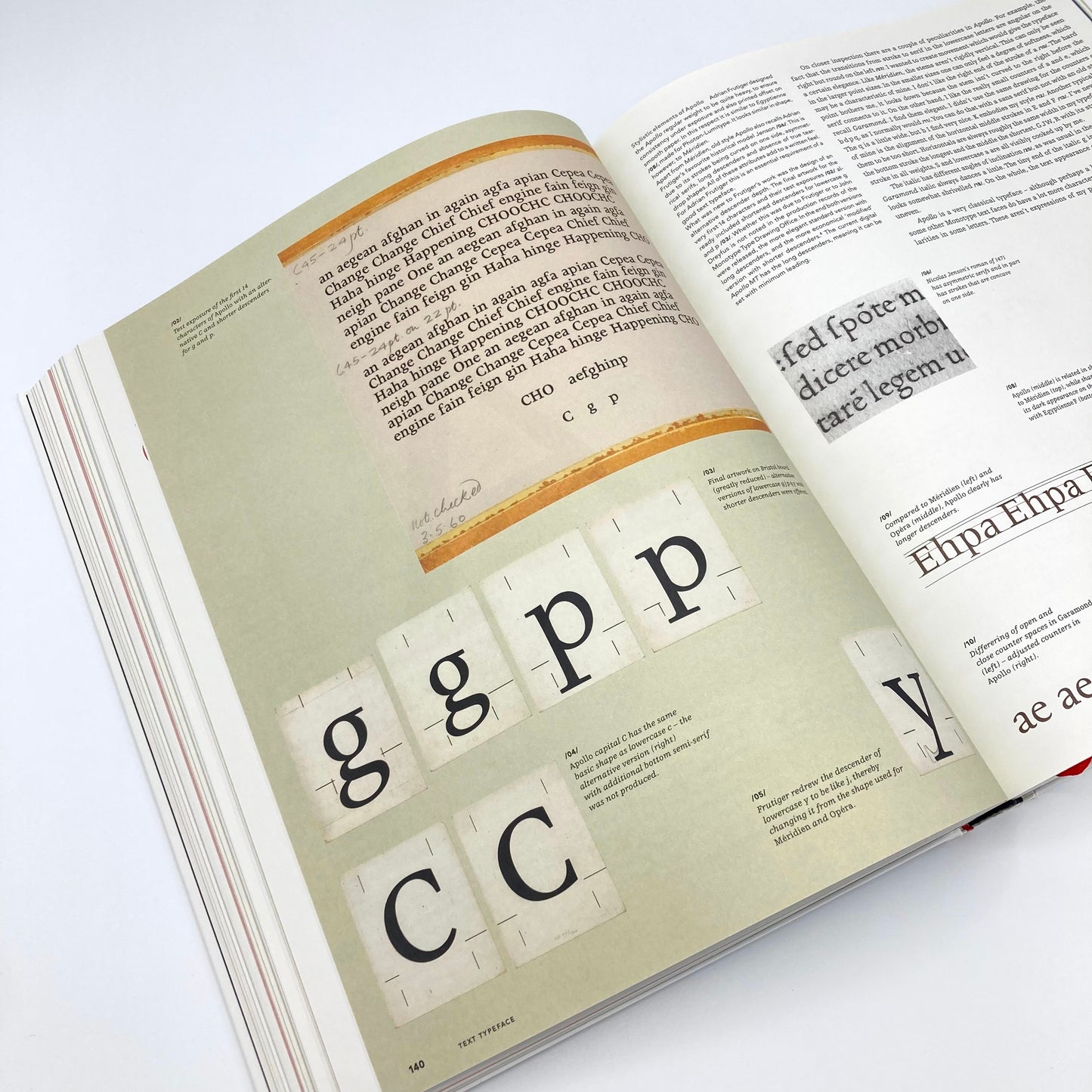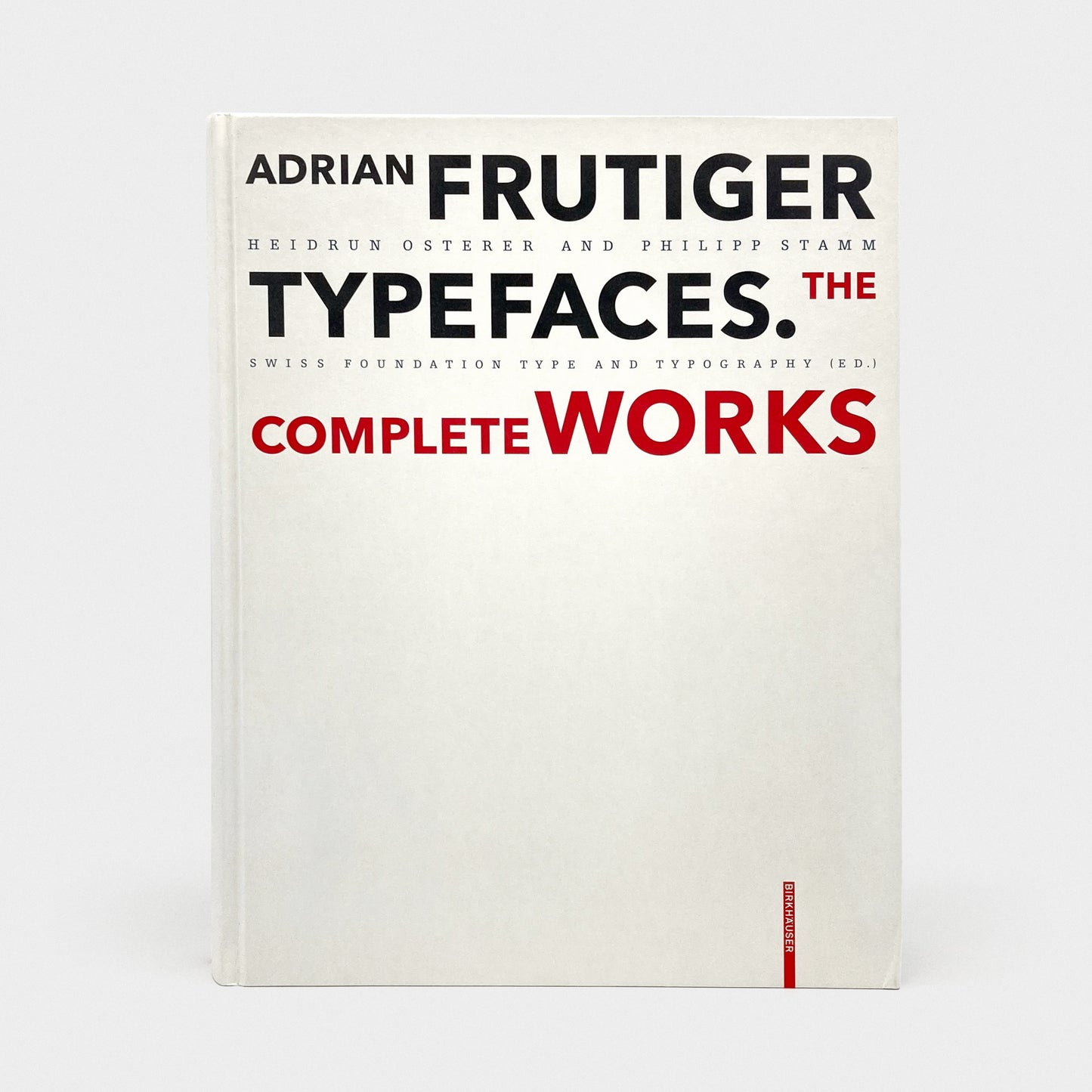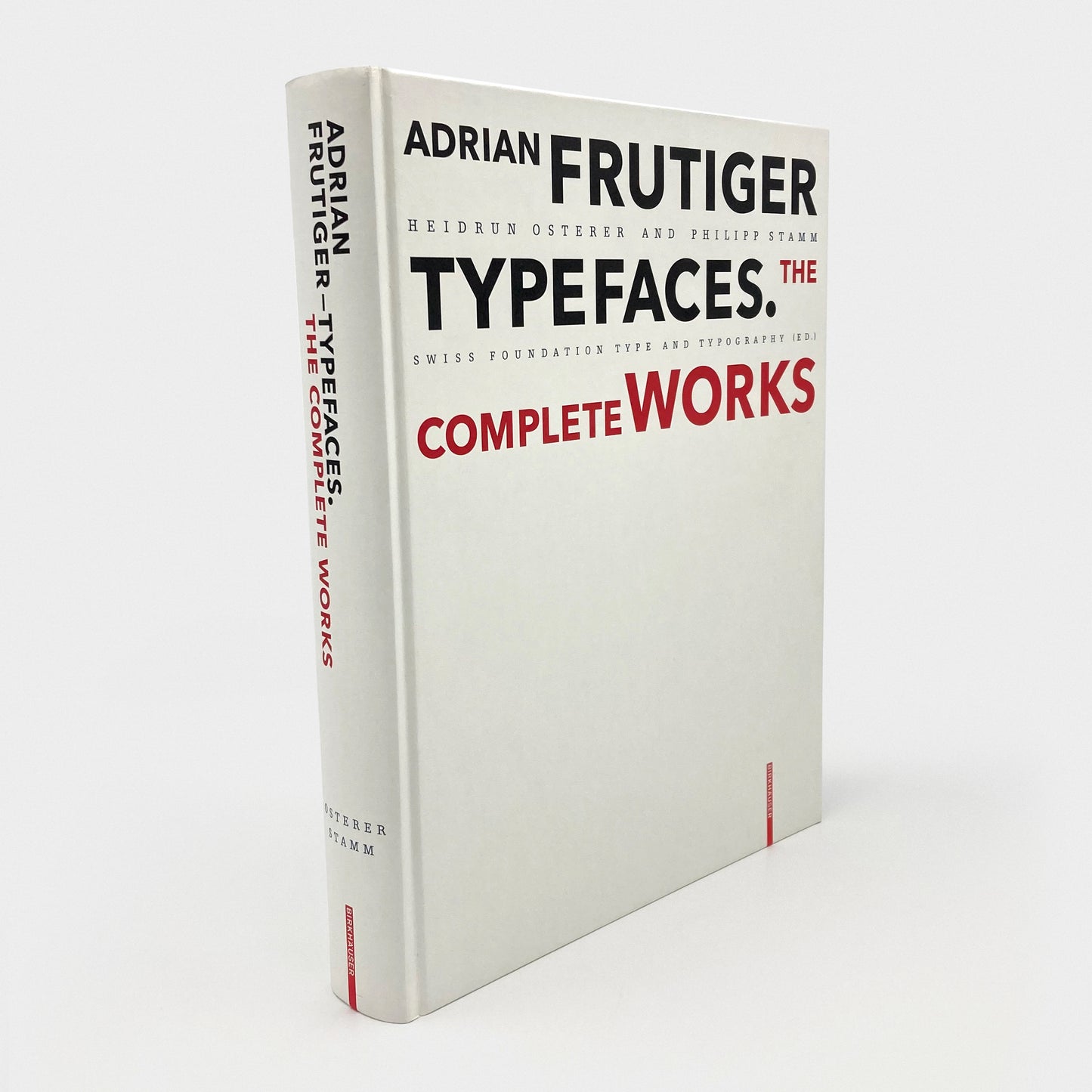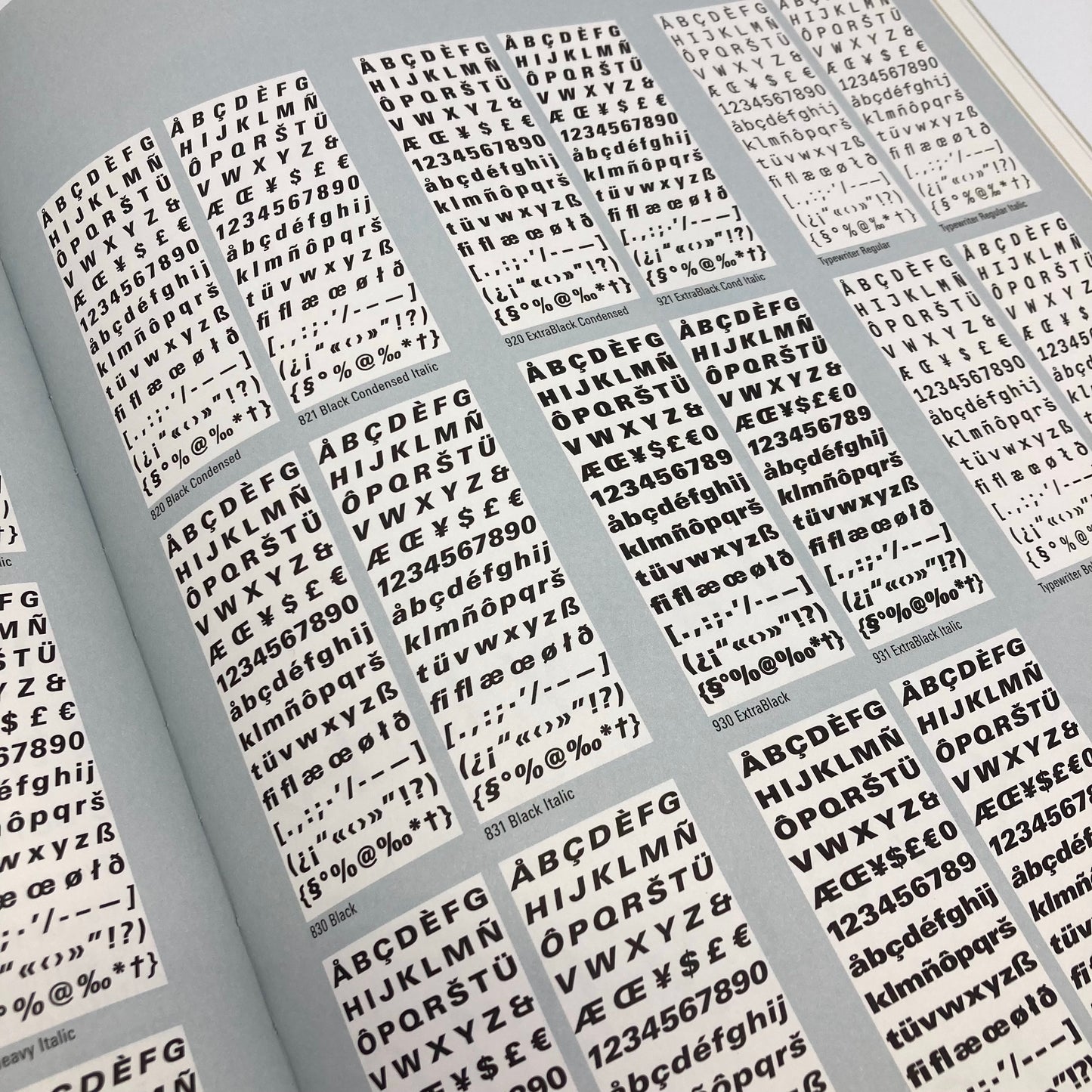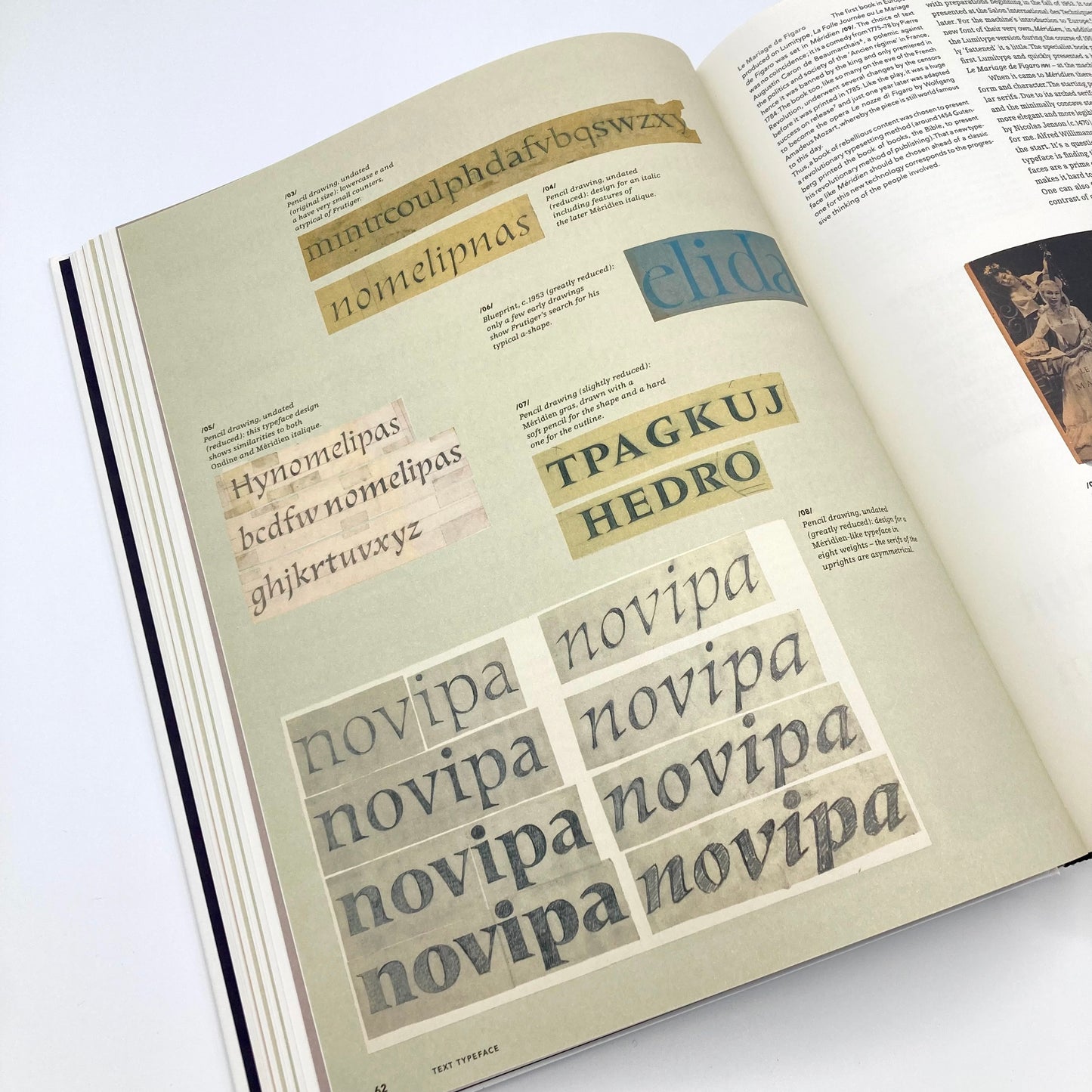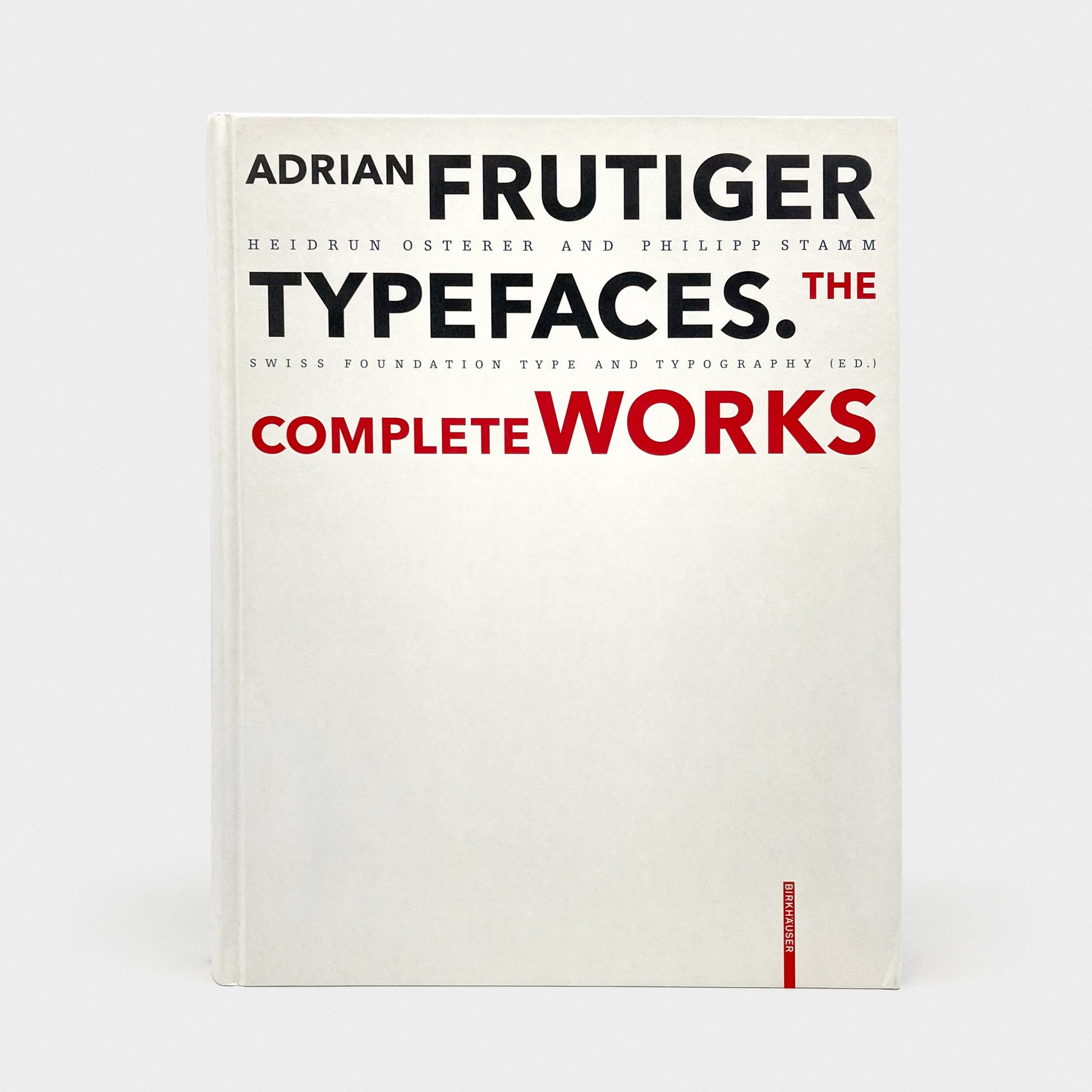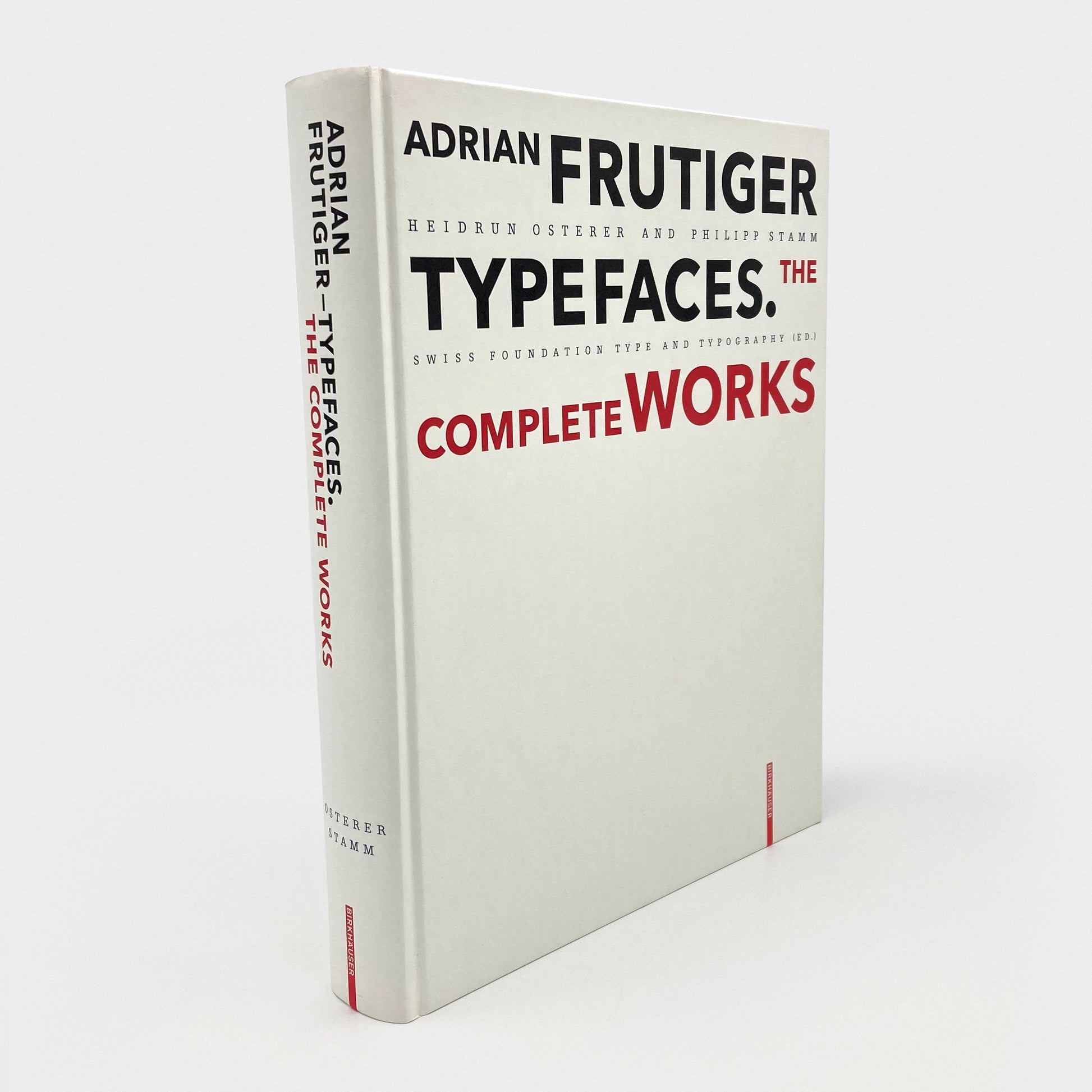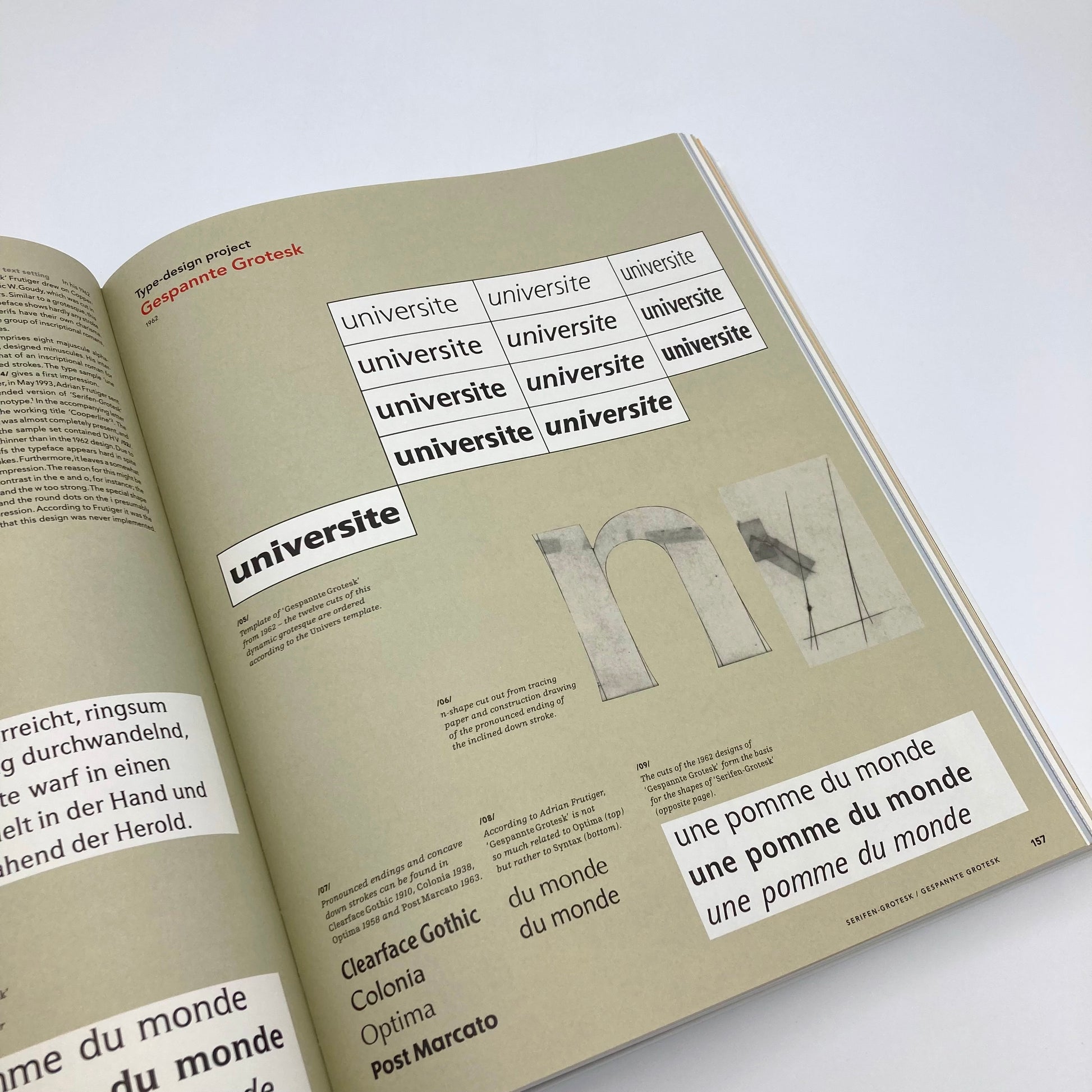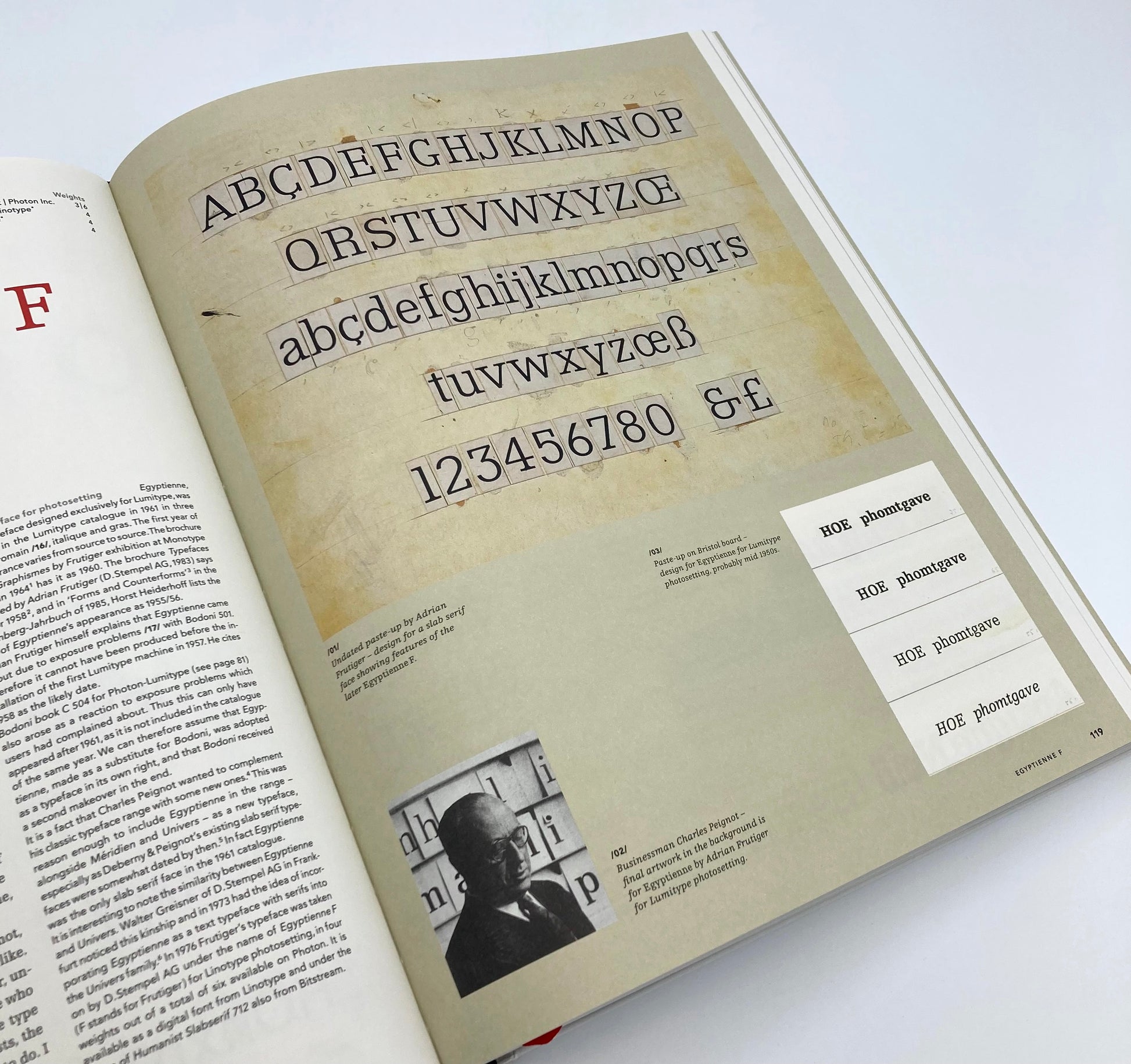
Adrian Frutiger – Typefaces: Complete Works
Heidrun Osterer & Philipp Stamm
The Swiss type designer Adrian Frutiger decisively influenced the international creation of typefaces after 1950, creating typefaces that are among the most successful of contemporary classics. His Univers typeface and the machine-readable font OCR-B, which was adopted as an ISO standard, are milestones, as is his type for the Paris airports, which set new standards for signage types and eventually evolved into the Frutiger typeface. Together with the sans serif typefaces Avenir and Vectora, they were responsible for his reputation as “Mr. Sans Serif.”
All together Adrian Frutiger designed over fifty typefaces in varying font styles, including Ondine, Méridien, Serifa, and Iridium. Also created in collaboration with colleagues were the corporate typefaces, including Shiseido, and more than 100 logos and wordmarks. An essential aspect of his activities was the development of typesetting techniques, which is examined in the book along with the history of type.
Based on conversations with Frutiger himself and on extensive research, this publication provides a highly detailed and accurate account of the type designer’s artistic development. Hitherto unpublished typefaces that were never realized and more than one hundred logos, along with accounts that contextualize his career, complete this detailed picture of Frutiger's contributions to the field of design.
First published in the year of Adrian Frutiger’s 80th birthday, it represents, as his wish, his legacy to further generations of type designers and typographers.
Includes index. Designed by feinherb Visuelle Gestaltung. Edited by the Swiss Foundation Type and Typography. Profusely illustrated throughout. A landmark volume, beautifully designed.